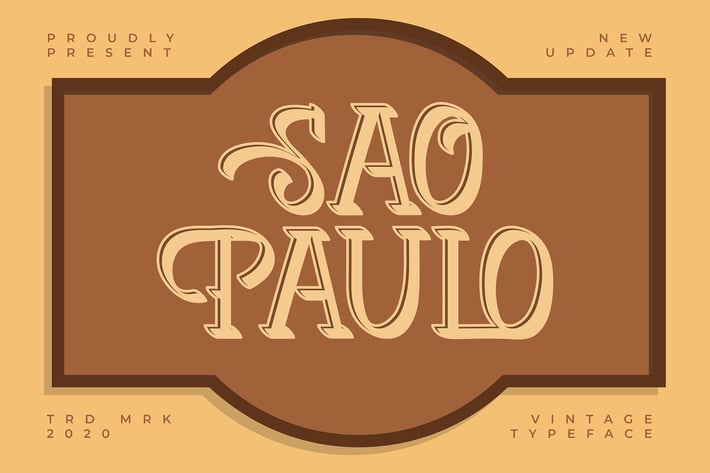
Sao Paulo | Vintage Typeface
Sao Paulo | Vintage Typeface with a calligraphy style, So beautiful on invitation like greeting cards, branding materials, business cards, quotes, posters, and more!